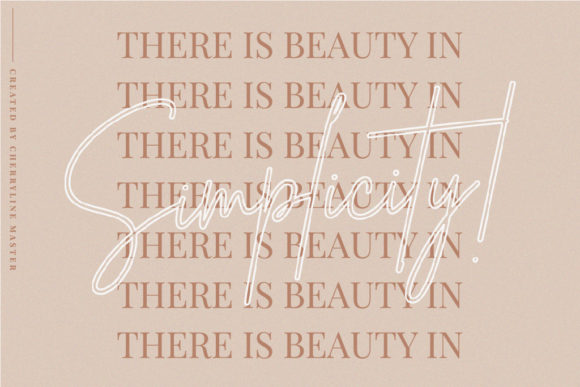
South Australia Font
South Australia is a lovely and timeless handwritten font. It is the best choice for creating eye catching logos, branding and quotes. Every letter has a unique and beautiful touch, which will make your design come alive!